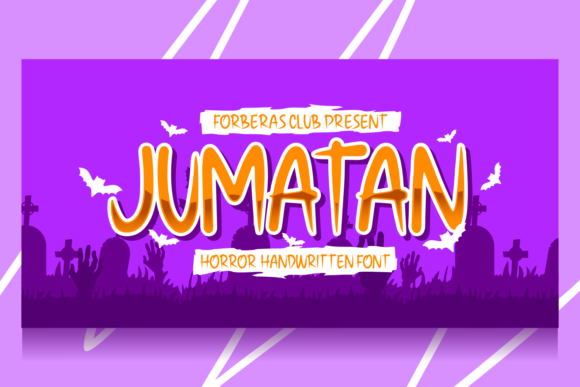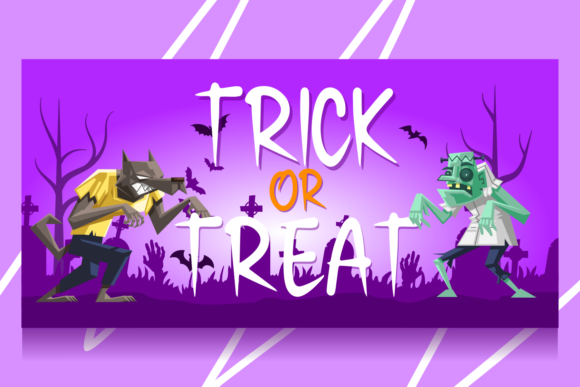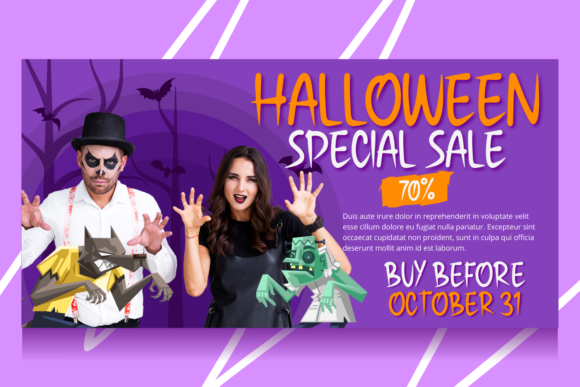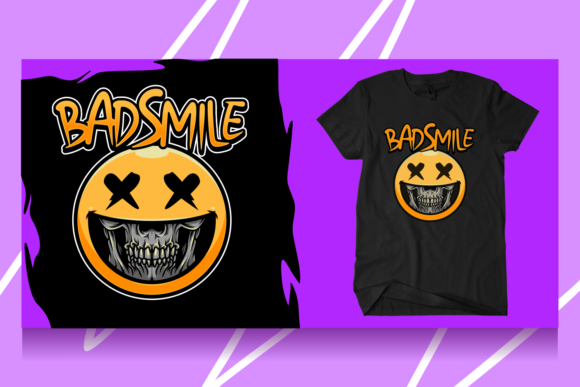
Jumatan Font
About Jumatan Font
Jumatan is a fun and spooky handwritten font. It can easily be added to your Halloween designs or October parties. The only limit is your imagination!